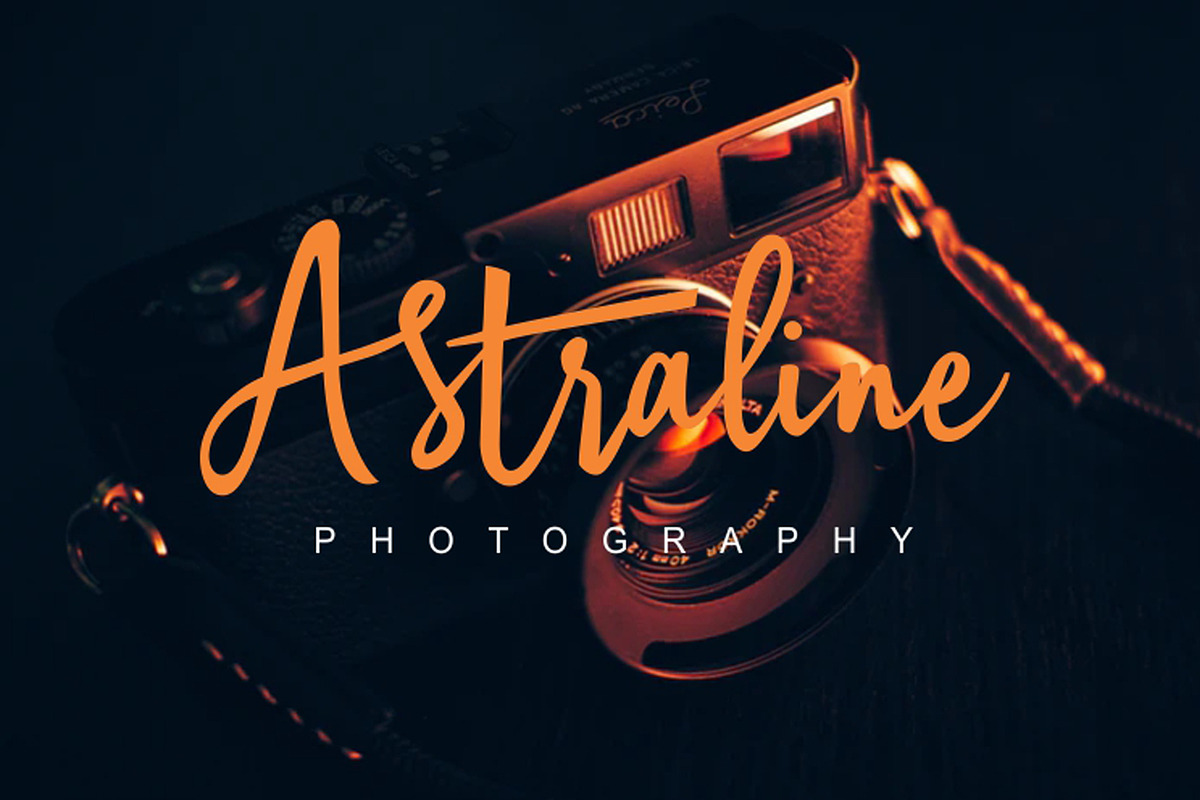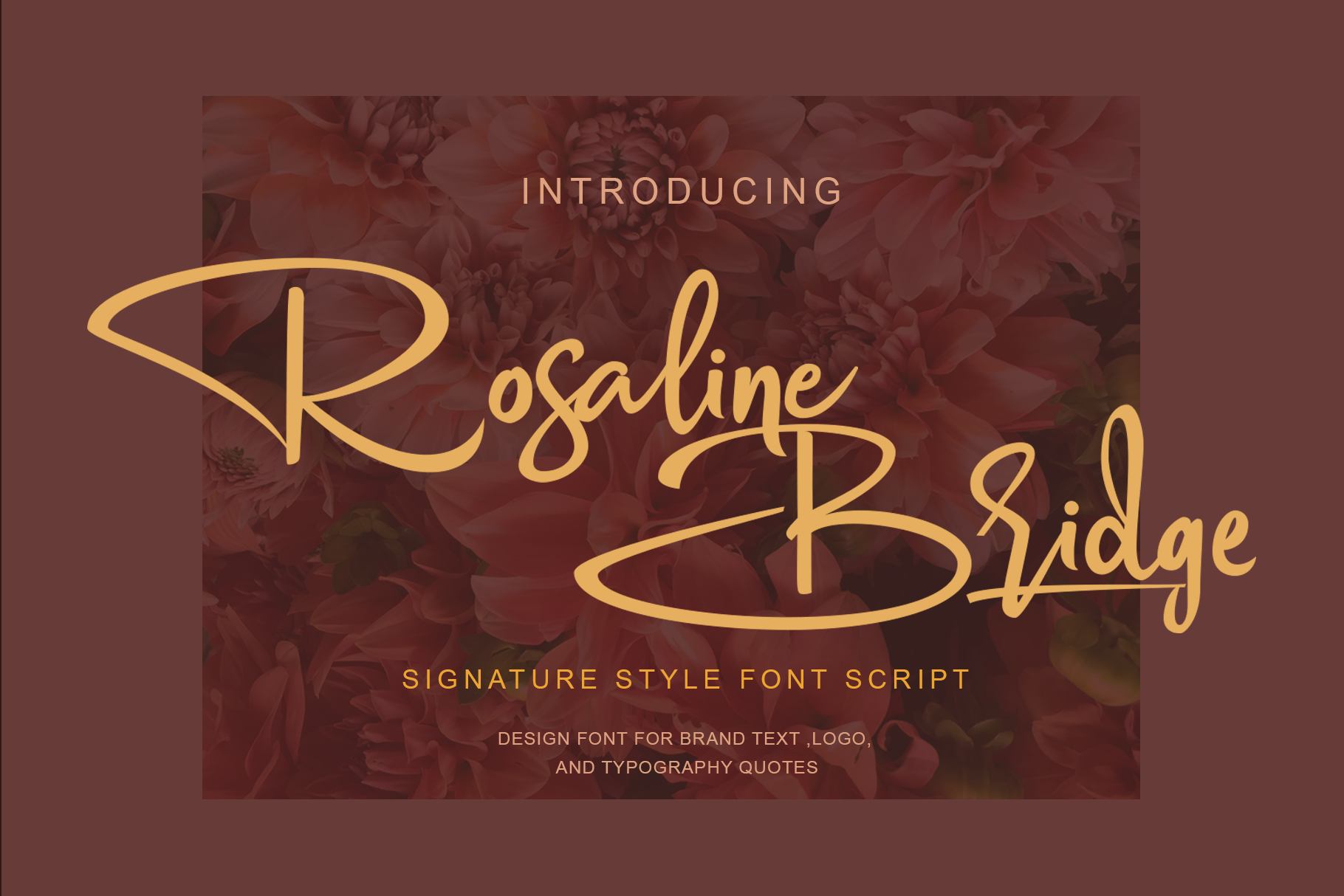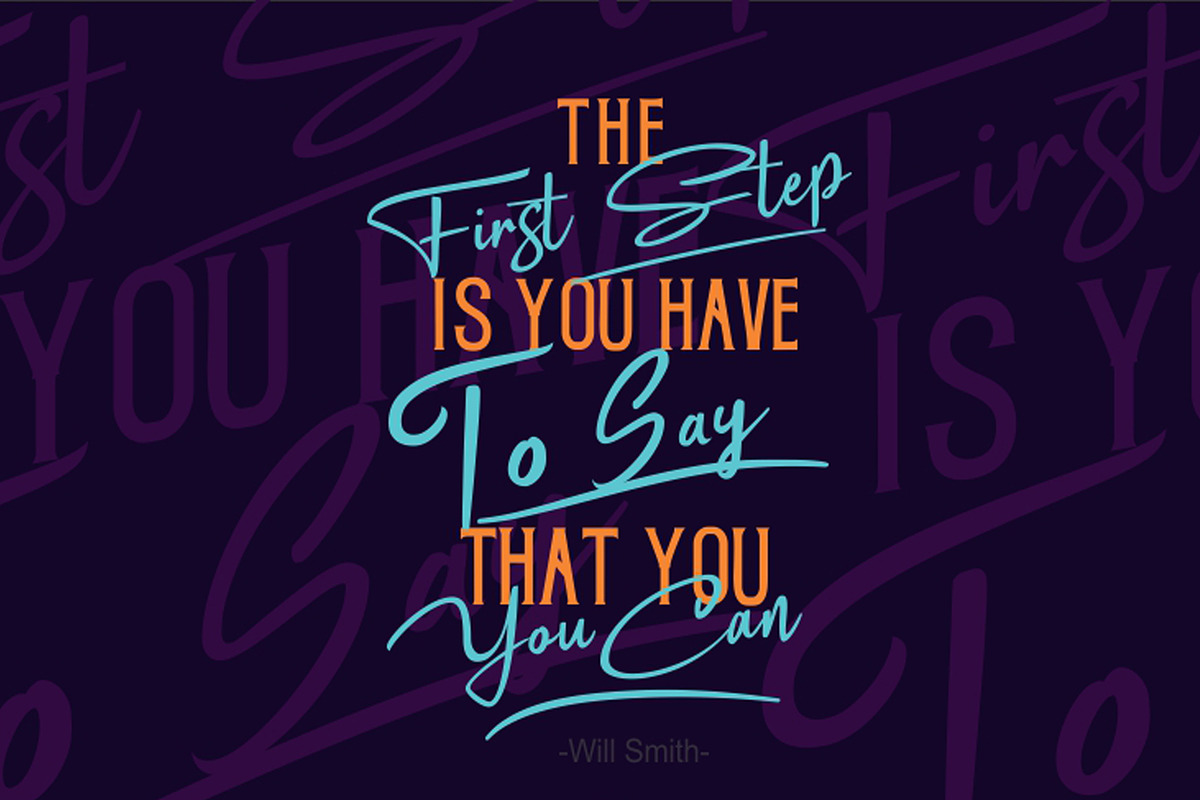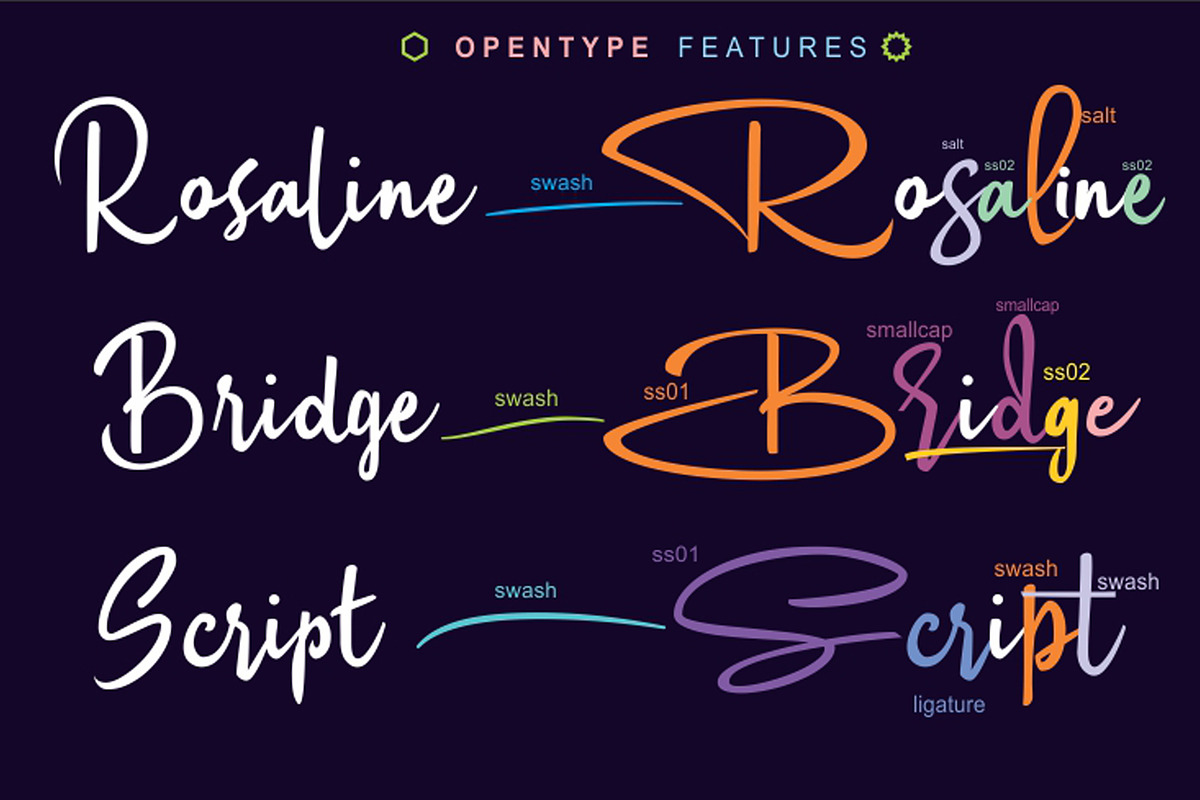
Rosaline Bridge font beautiful
Rosaline Bridge Script font comes with a signature style that is made with hand scratches but with some variations on digital, with classic themes and beautiful feminine signatures but thick so it is suitable for design needs for wedding themes, logotype signatures, quotes, crafts, and still many, with Rosaline Bridge's opentype features more beautiful and attractive to be used as typography art that is tailored to the needs. Rosaline Bridge is a stunning stylistic script font that exudes elegance and sophistication. With its flowing curves and beautiful swashes, this font is perfect for creating stylish and luxurious designs. Whether you're designing wedding invitations, product packaging, or branding materials, Rosaline Bridge will add a touch of glamour to your work. Its elegant and modern design makes it ideal for creating beautiful logos, signage, and editorial designs. With its versatility and beauty, Rosaline Bridge is a must-have font for any designer looking to add a touch of luxury and refinement to their designs. Opentype Feature; Ligature Salt Ss01-Ss03 Swash smcp